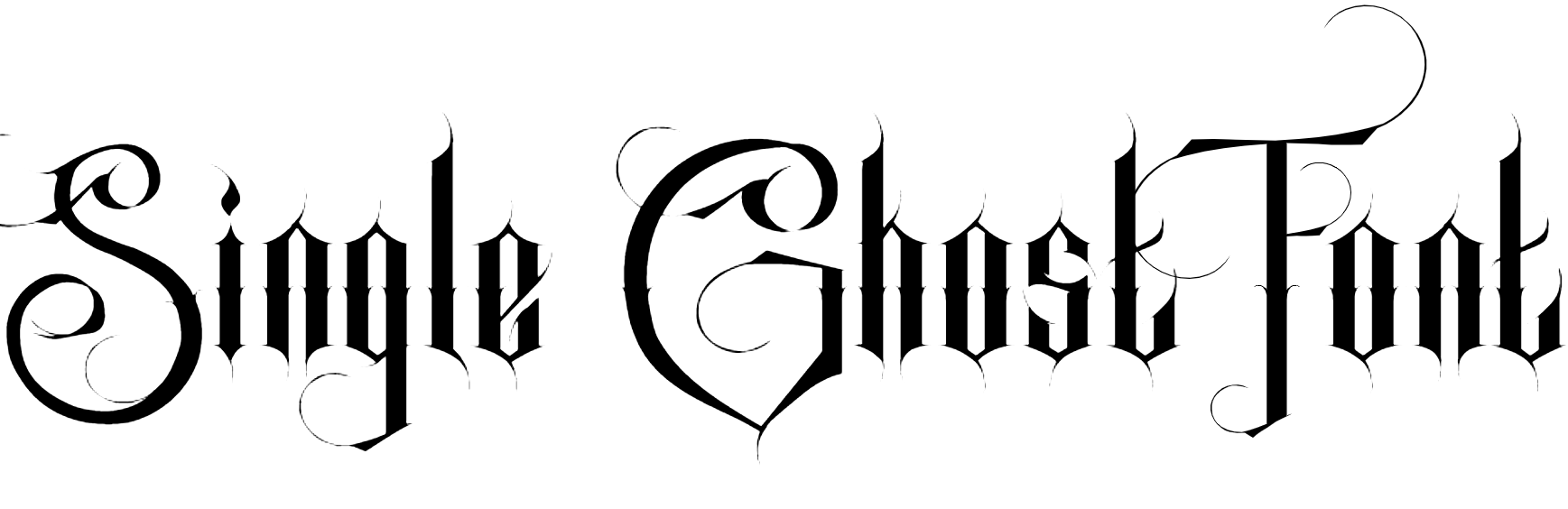
Single Ghost
Single Ghost is a gothic font (2019). Sharp, dark and dramatic, it follows the blackletter tradition of old European manuscripts. It's a free download, and you can try it with your own text in the preview above first.
What You Can Type With Single Ghost
You get every letter from A to Z in both cases and all the numbers from 0 to 9, which means Single Ghost can handle full sentences, dates and prices. Common punctuation such as &, !, ? and @ is included as well. It also has the accented letters you need for Spanish, French, German, Portuguese and Italian.
Where Single Ghost Works Best
Single Ghost is a natural fit for tattoos, metal band logos and dark fantasy titles. Its lowercase letters are small compared to the capitals, so set it a size or two bigger than usual. Blackletter is very hard to read in all caps, so type in normal upper and lowercase.
Does Single Ghost support accented letters?
Yes. Single Ghost includes the accented letters needed for Spanish, French, German, Portuguese and Italian, so it works for more than just English.